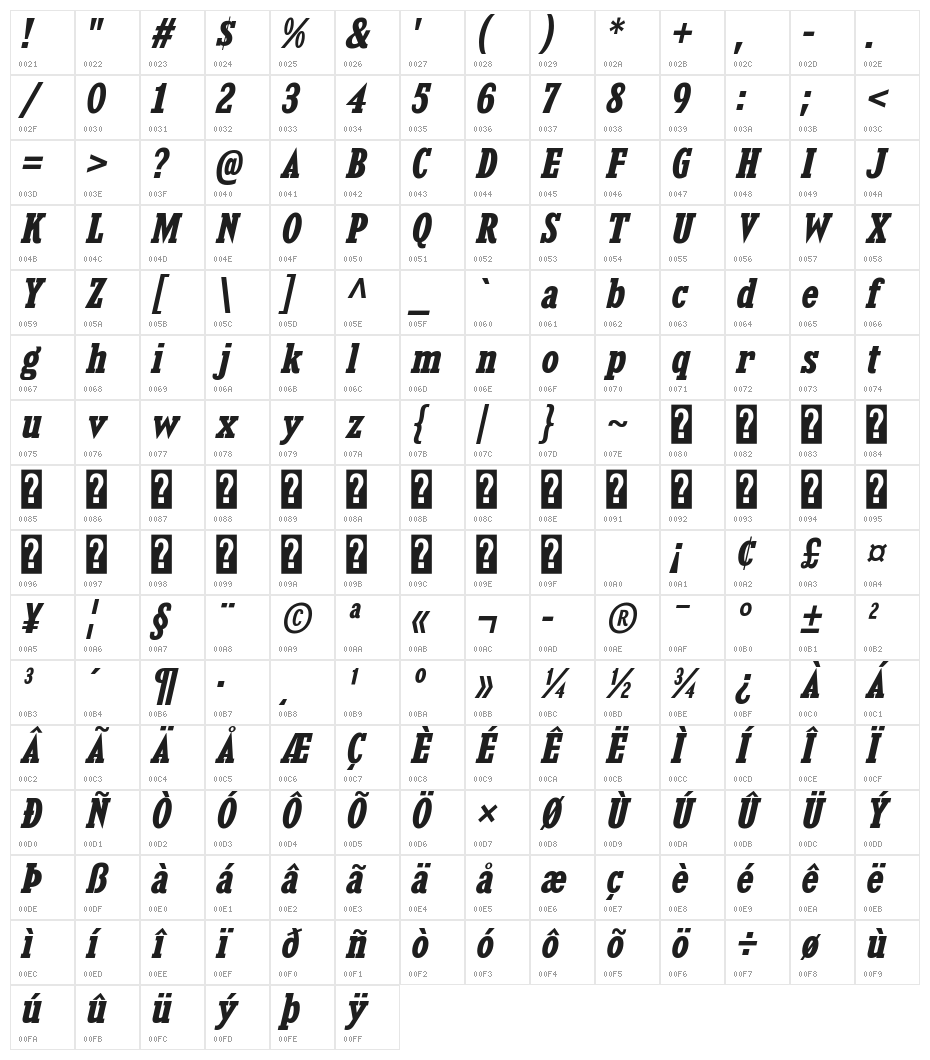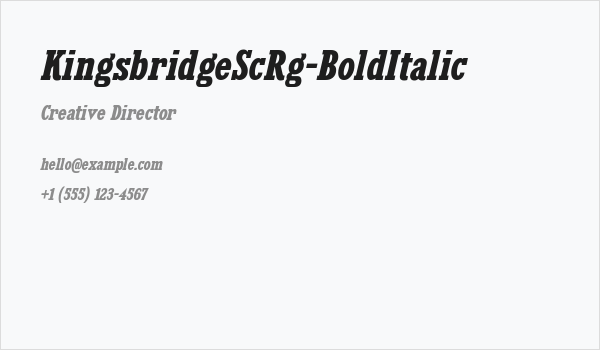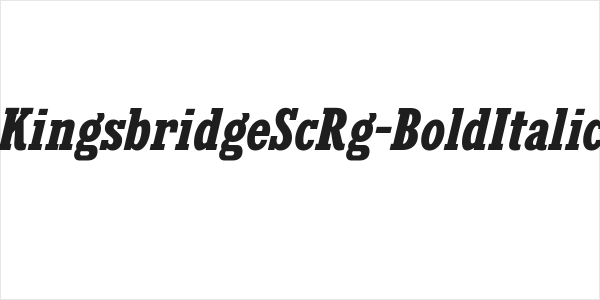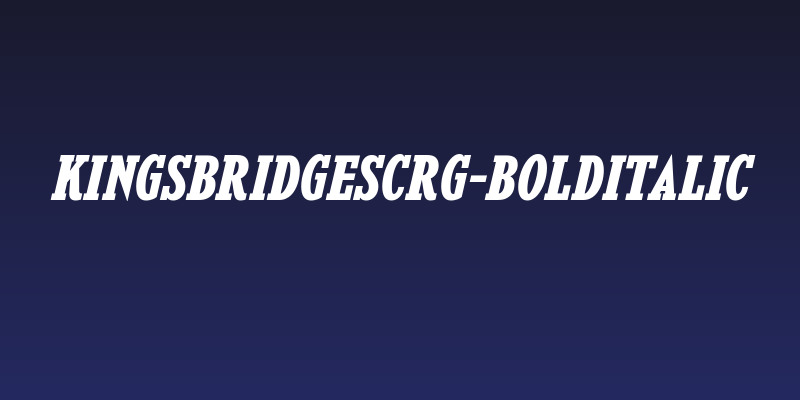
KingsbridgeScRg-BoldItalic Font
KingsbridgeScRg-BoldItalic Description
This font features a bold and italic style, characterized by strong, thick strokes and a noticeable slant, giving it a dynamic and assertive appearance. The uppercase letters are prominent with sharp serifs, while the lowercase letters maintain a consistent flow, enhancing readability. The numerals are equally bold, ensuring visibility and impact. Special characters are well-defined, maintaining the font's overall bold aesthetic. The font's design is suitable for making statements, with a classic yet modern touch that can adapt to various design needs.
Proposed ProjectsIdeal for headlines, posters, branding, and any project requiring a strong visual impact.